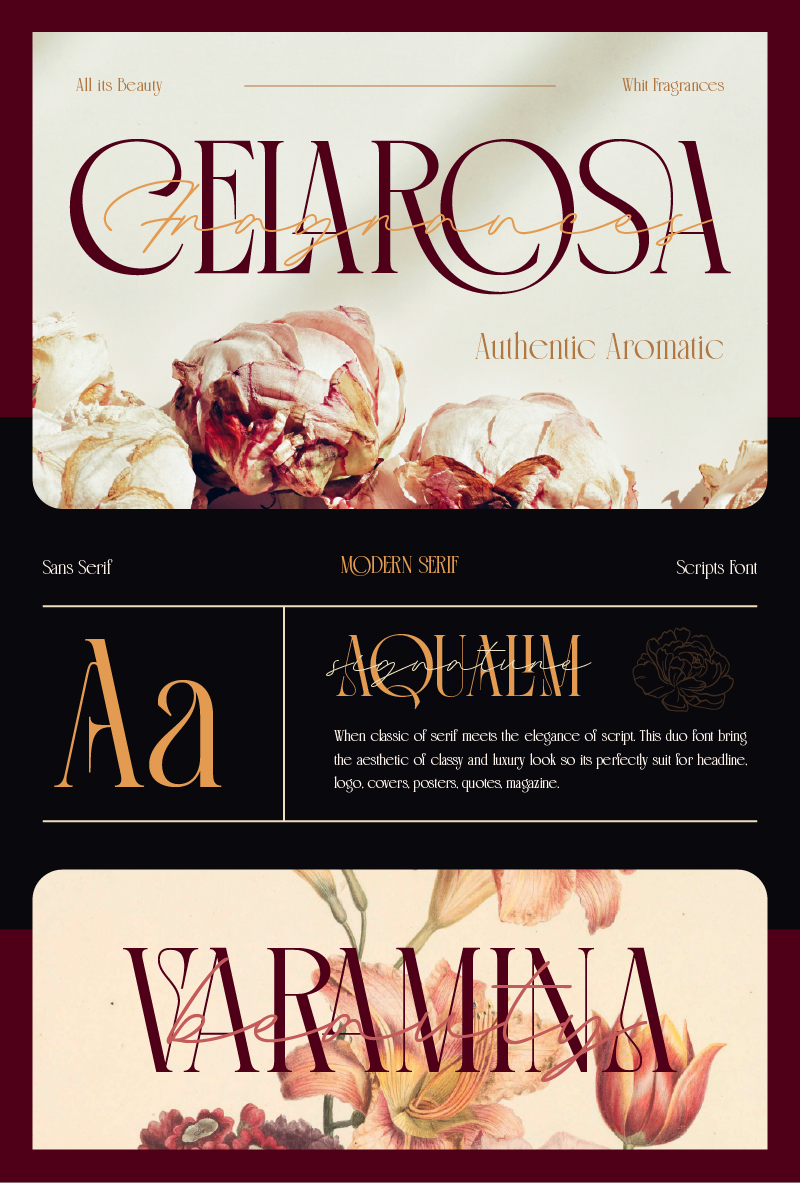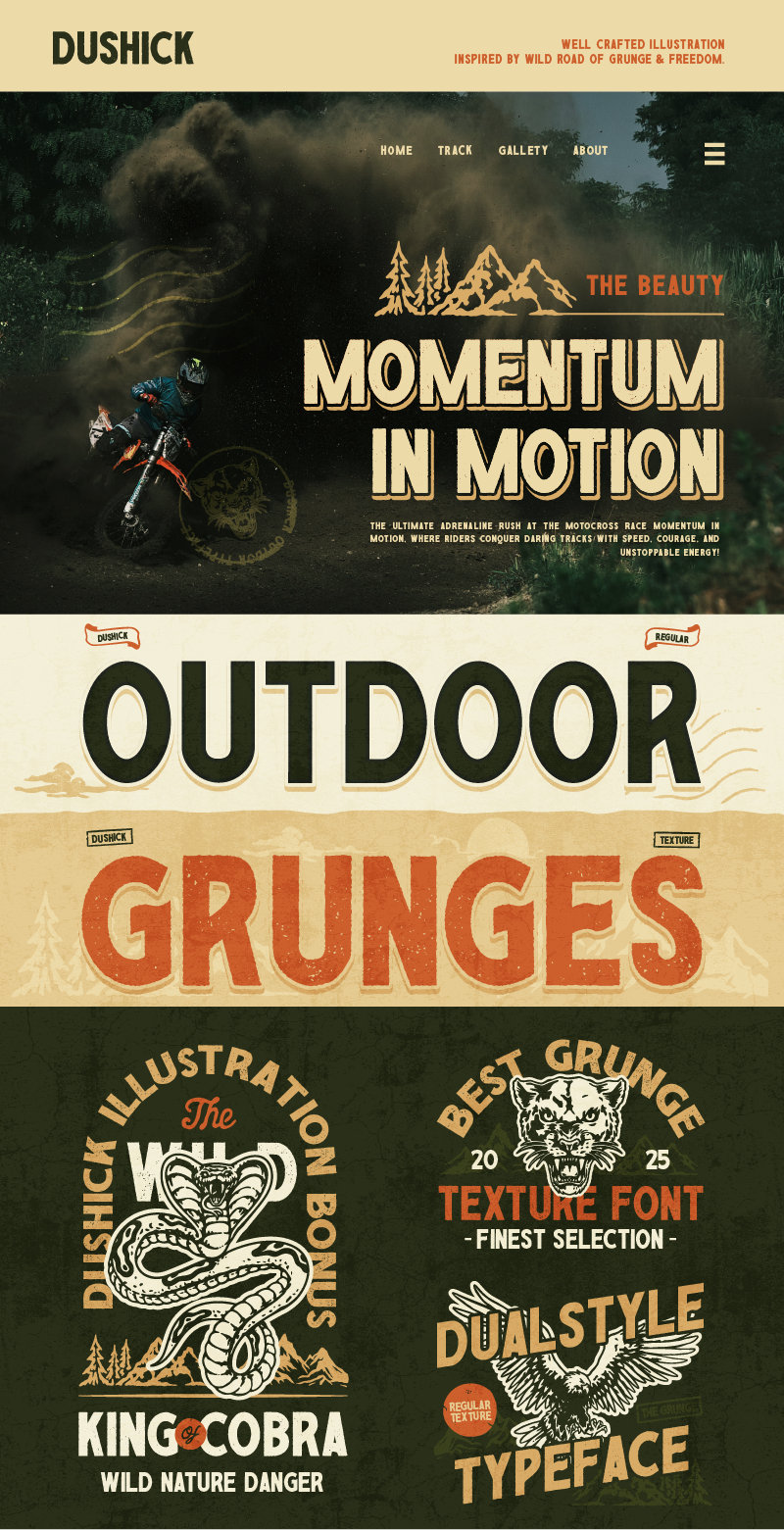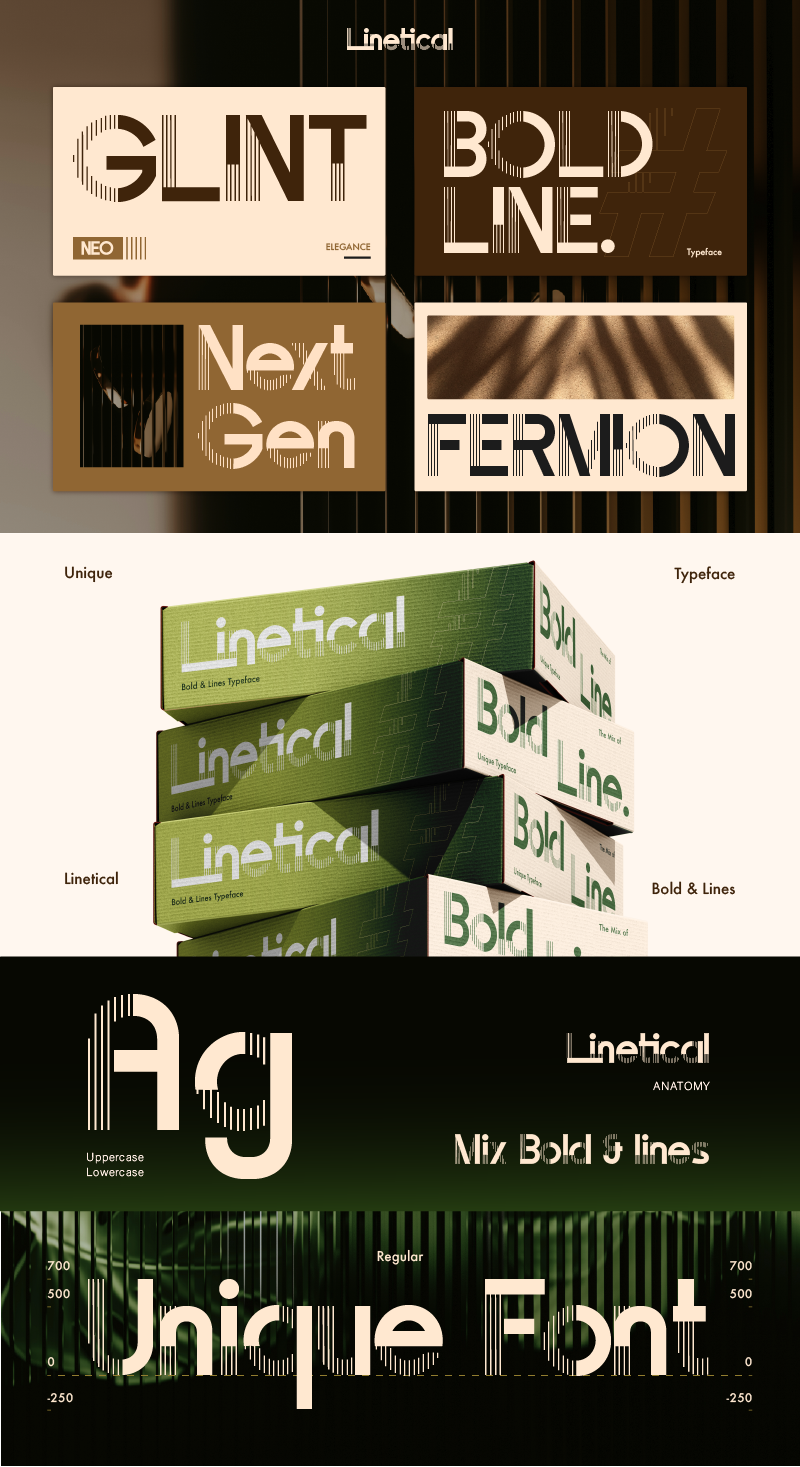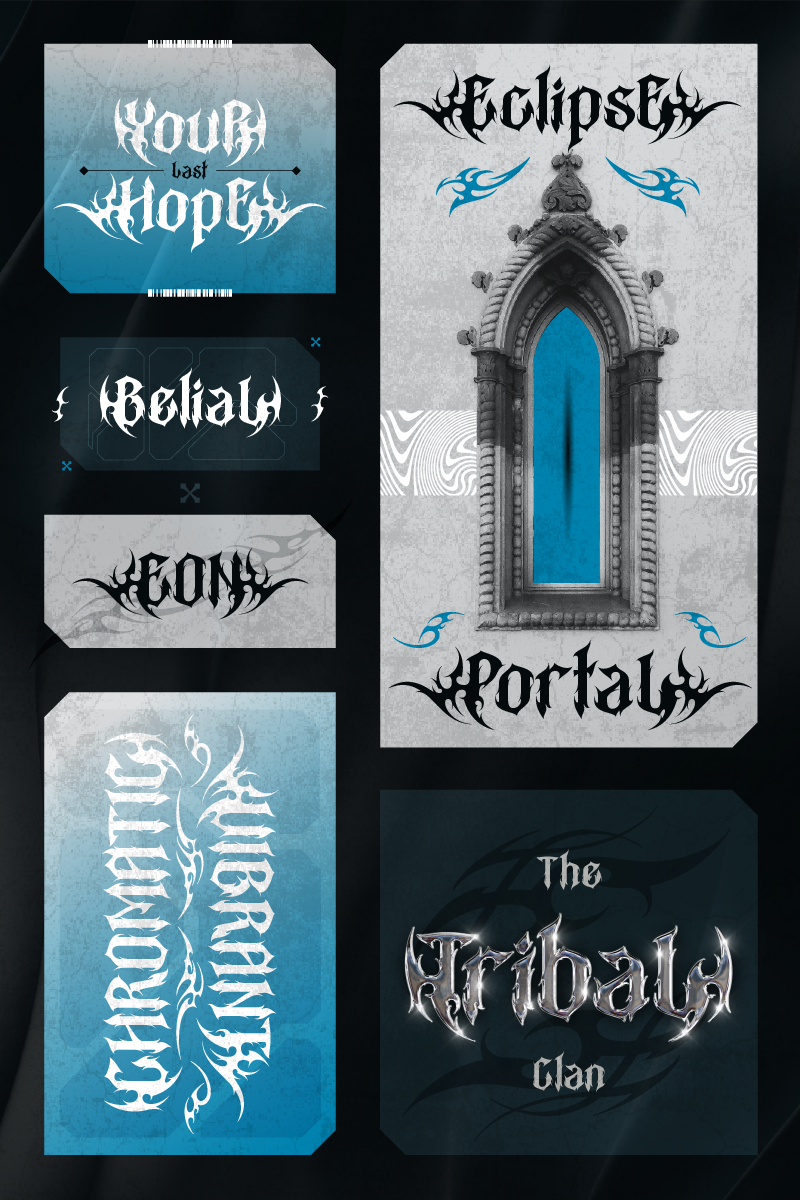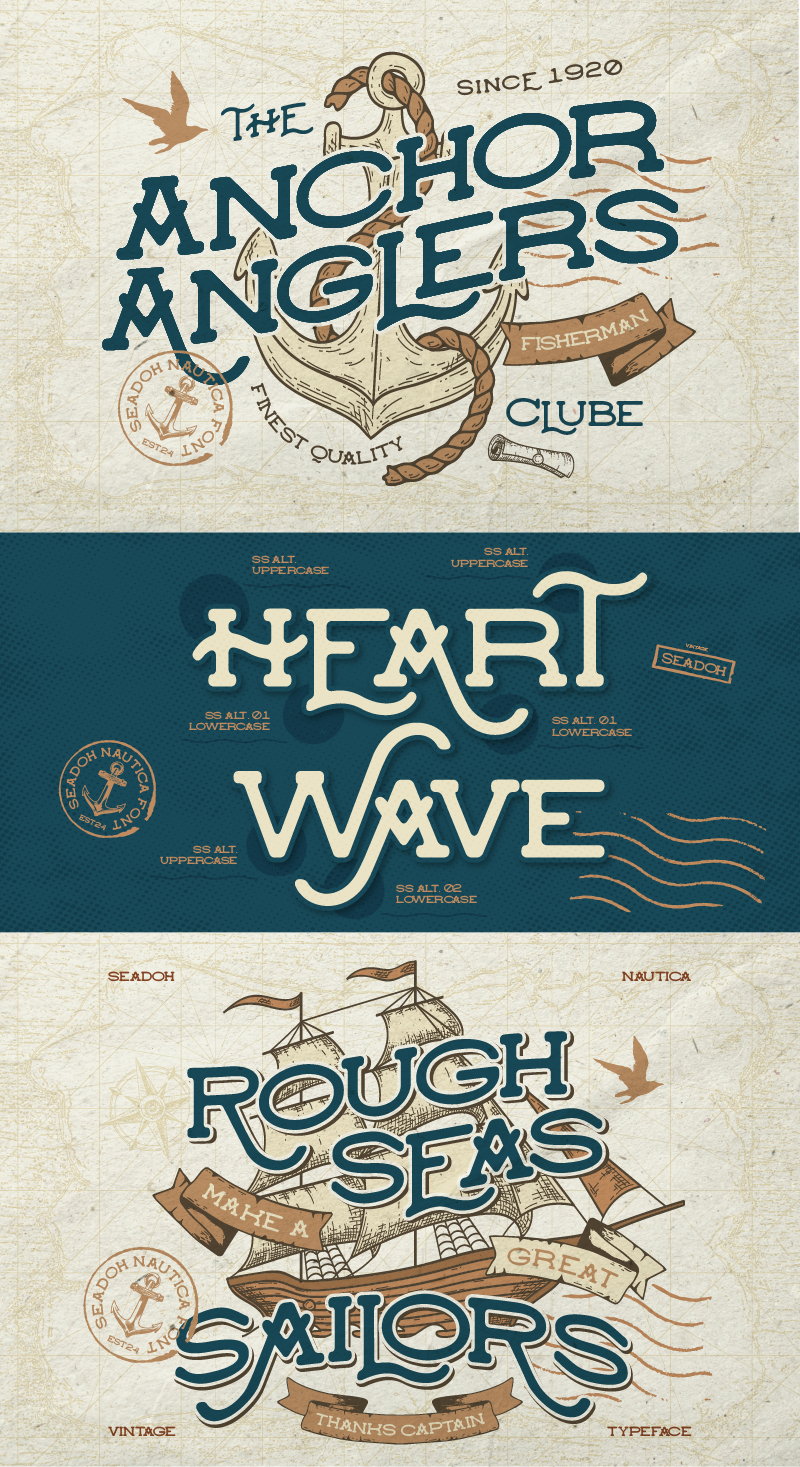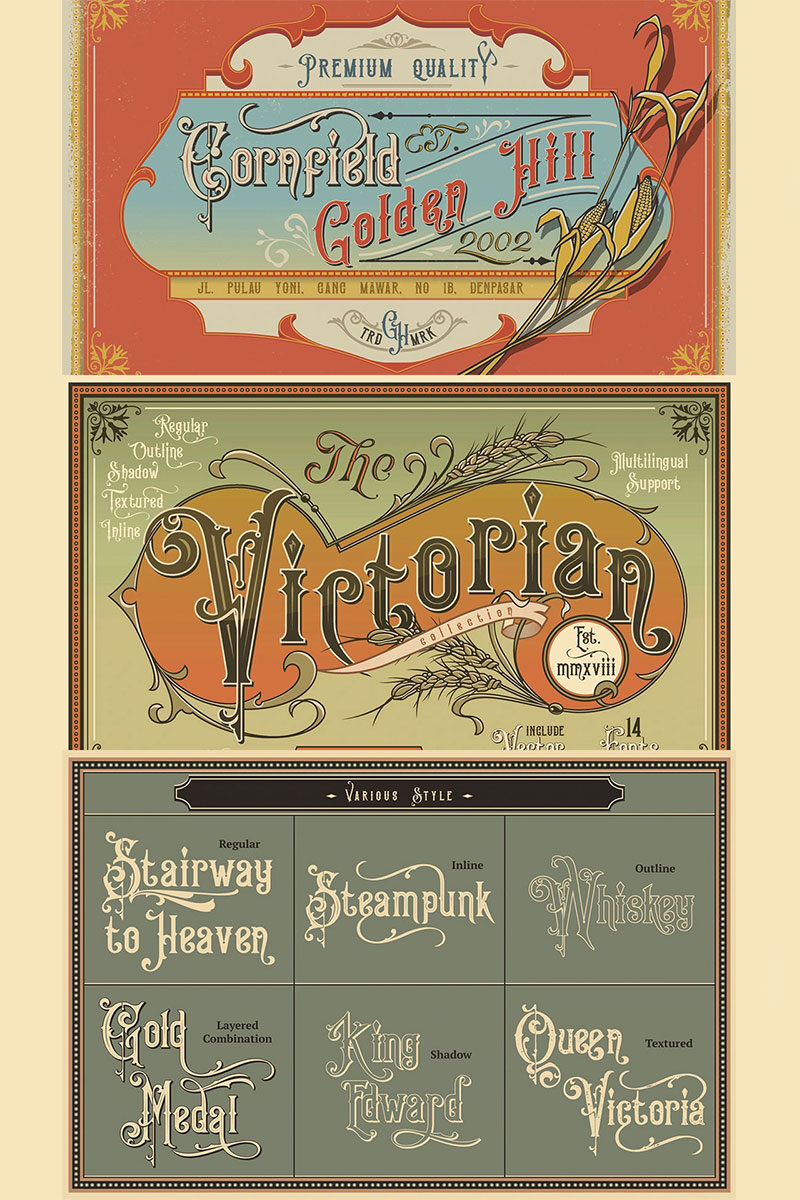
Aqualim Signature is a combination of classic serif and the elegance of script. This font duo brings aesthetic beauty, creating a classic and luxurious feel. Perfectly suit for headline, logo, covers, posters, quotes, magazine, wedding, product packaging, merchandise, social media, marketing materials and many more.
Linetical is a geometric typeface that combines the boldness of sans serif with delicate lines in each letter. This unique combination creates a modern aesthetic and visually dynamic look. With its minimalist yet professional appearance, this font is perfect for capturing attention while maintaining sophistication. Ideal for branding, headlines and modern design.
Purevil is a tribal metal font with bold letters that still look modern, thanks to its unique shape in each letter. This font also includes ornaments, making it a perfect choice for those creating metal-themed designs such as album covers, metal band logos, music concert posters, game interfaces, and more. This tribal metal font can add an extra punch to your design.
Victorian Fonts Collection, King Edward and Queen Victoria fonts in one solid package. Very victorian, ornamental, decorative and classic. A solid combination that can bring your design, logo, document, website, etc. back to 1800 decade.
Dushick is a bold and rugged display font that captures the spirit of the great outdoors. This font offers regular style and textures style for added versatility and stand out. Ideal for branding, streetwear, restaurant, logos, posters, merchandise, outdoor branding, camping gear and any design project with rustic and adventurous touch. This font comes with cool bonus illustration.
Seadoh is a font inspired by maritime themes. It combines a modern look with a sense of adventure. Seadoh is characterized by bold and chunky letters, giving it a vintage and retro feel. With two weights, light and regular, this font is ideal for any project that needs a touch of the sea, such as logos, posters, greeting cards, signage, headlines/titles, and more.